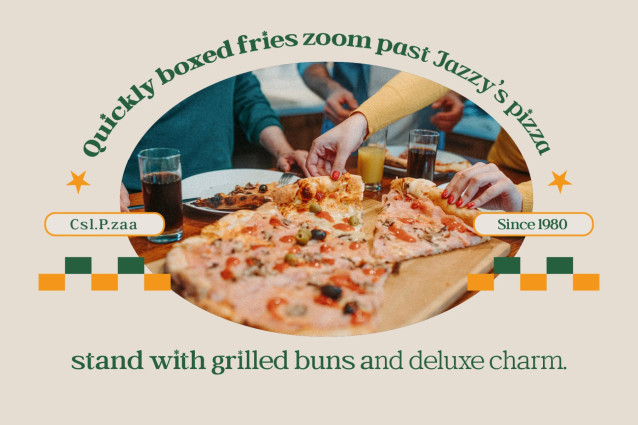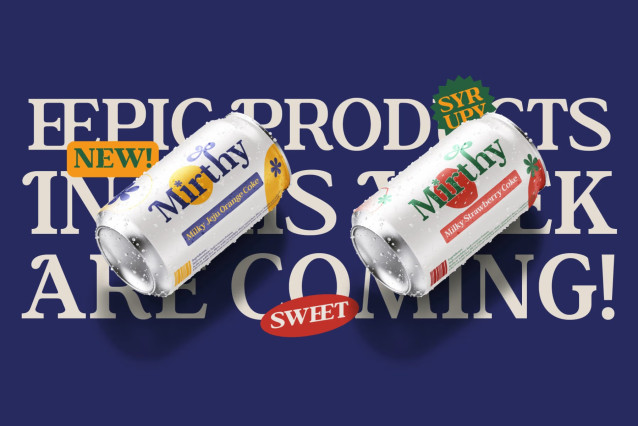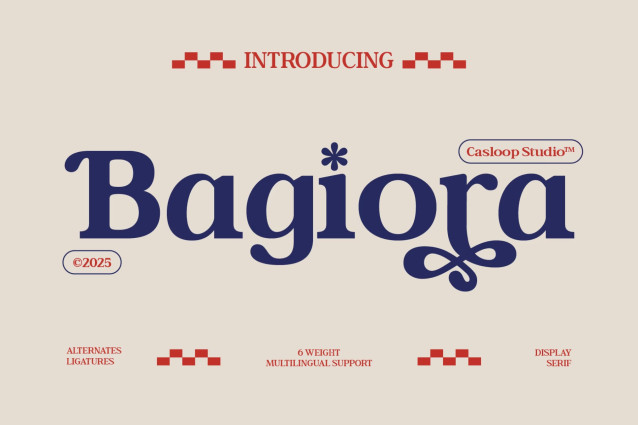
Bagiora is a bold yet soft display serif crafted for brands that want to look confident but feel approachable. Inspired by the warmth of foodie culture and the sophistication of editorial design, Bagiora pairs robust letterforms with smooth curves, making it equally at home on a global brand identity or a cozy cafĂŠ menu.
Its most charming features lie in its character âaâ and âgâ â rounded, friendly, and irresistibly playful. Activate Stylistic Set 01 (SS01) to transform a, n, and h into even more fun, whimsical shapes, perfect for food-related posters, lively packaging, or branding that wants a touch of sweetness without losing its bold presence.
With 6 weights from Regular to Black, plus OTF, TTF and Variable Font formats, Bagiora is ready for every platform â from global signage systems to animated web typography. It also supports Multilingual Extended Latin, making it a versatile choice for worldwide branding.